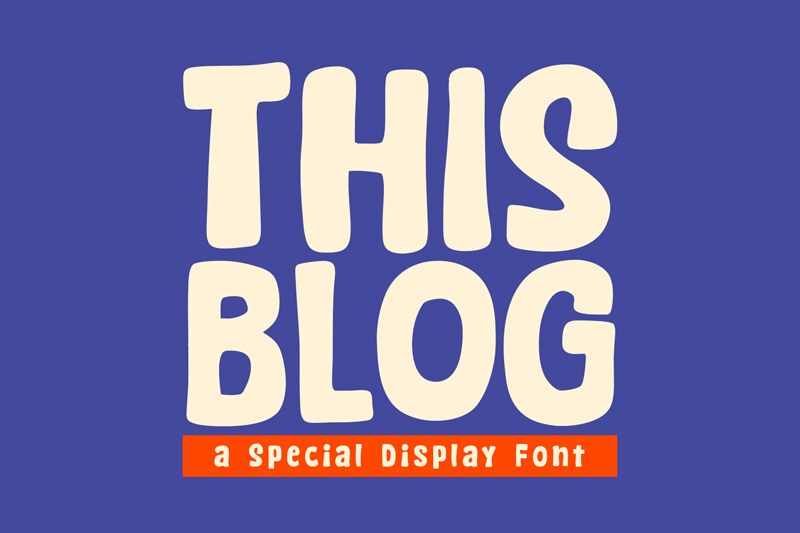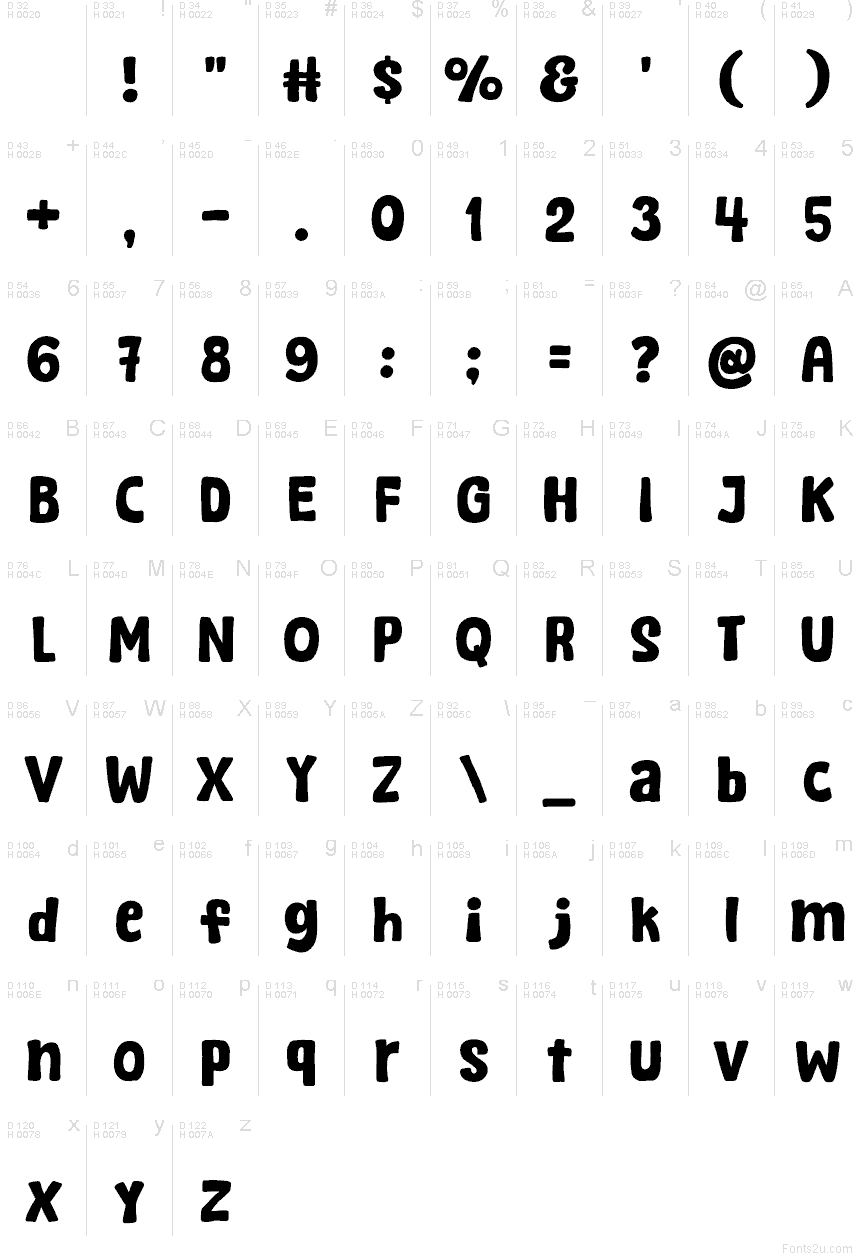
This Blog, by Khurasan & Jalembe, is a free cartoon display font with a chunky, hand-drawn bounce and a friendly comic-strip feel. The letters are thick and rounded with soft corners, tall uneven strokes, and a slightly squashed rhythm that makes the whole font feel playful rather than slick.
It fits poster headlines, kids' book covers, YouTube thumbnails, snack packaging, party invites, and quick logo ideas where a free font needs an easygoing voice. Because the shapes are so bold and simplified, it also works nicely for short title cards and big one-word callouts where that rubbery, informal energy can carry the message on its own.